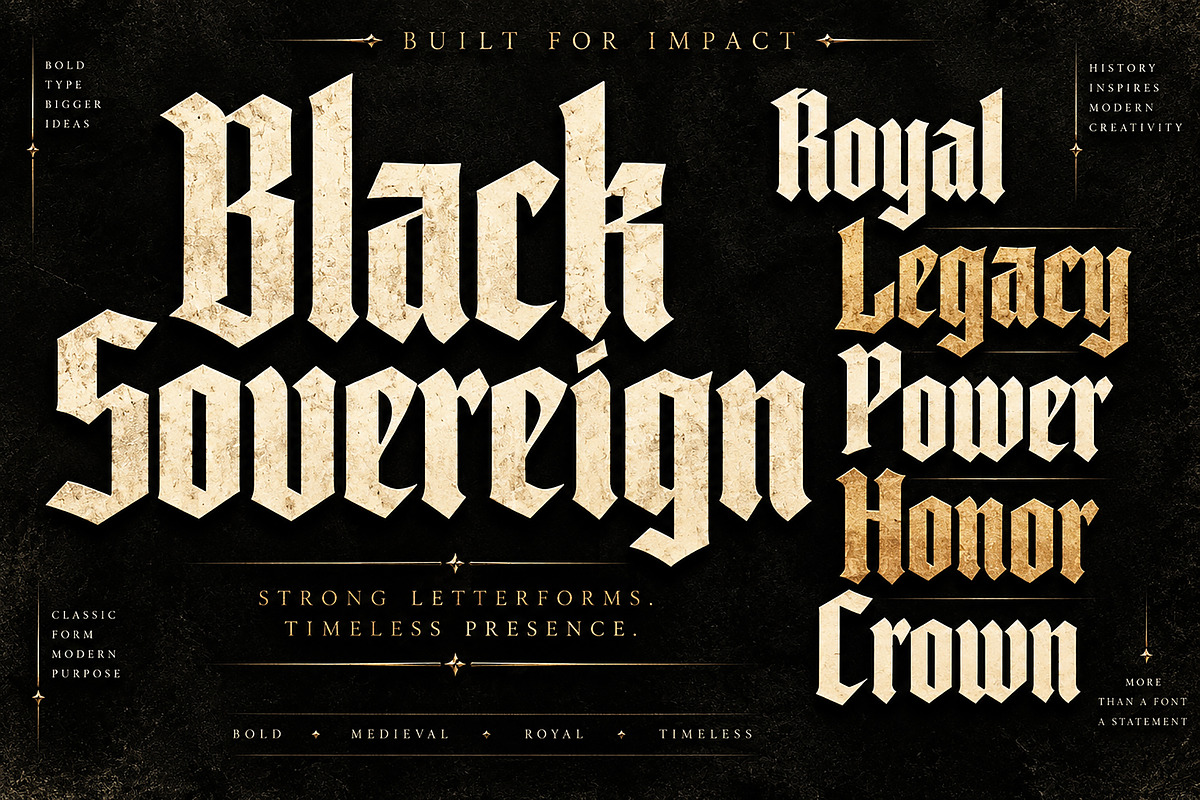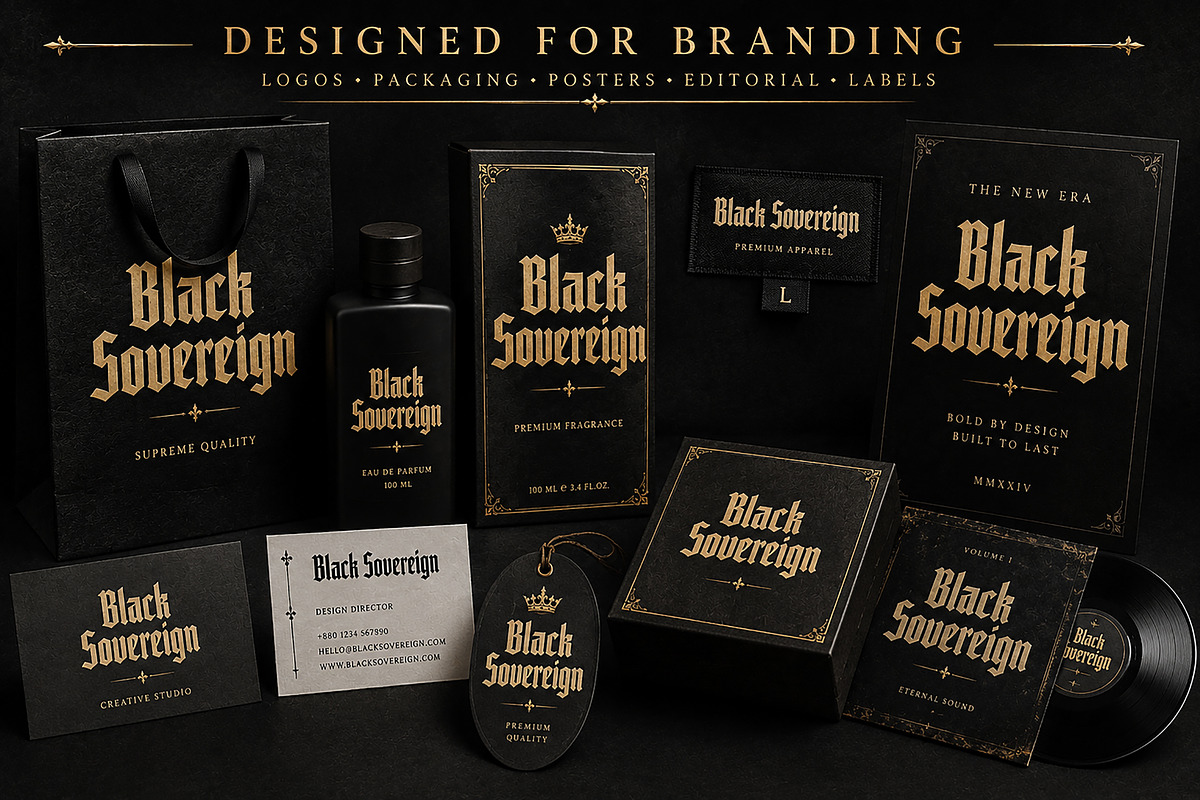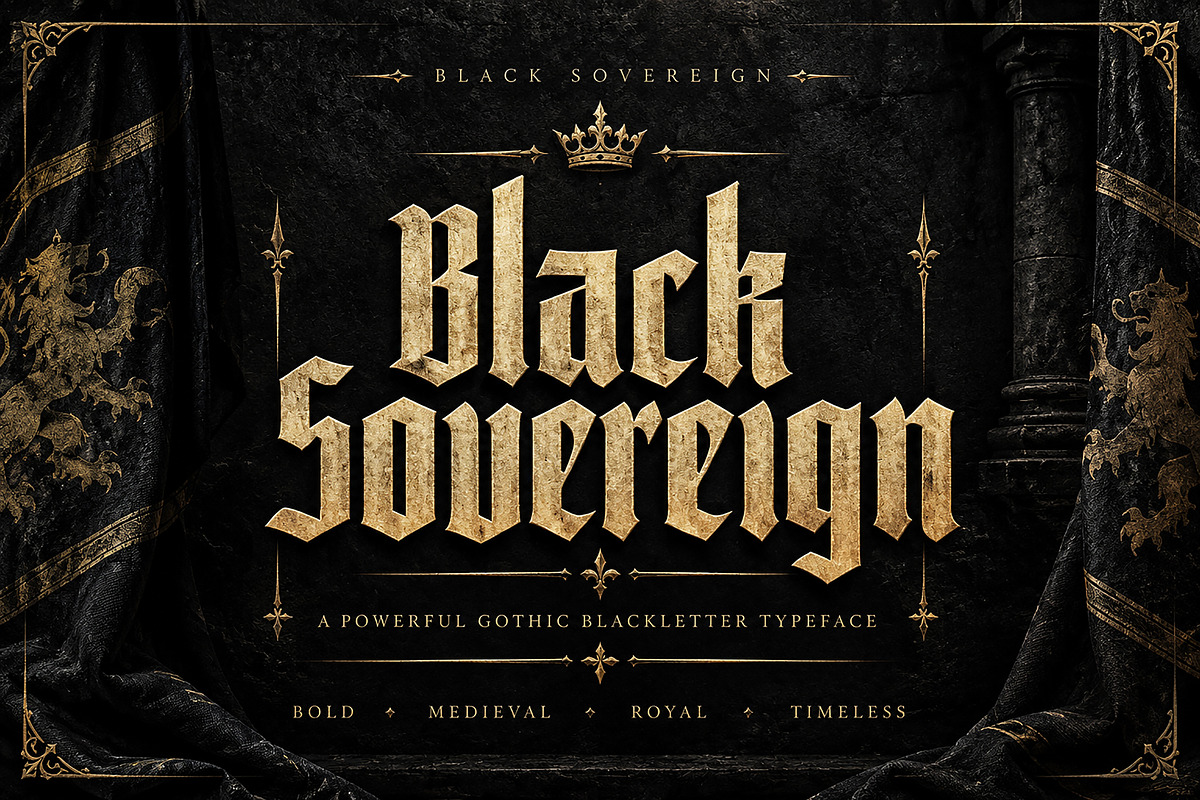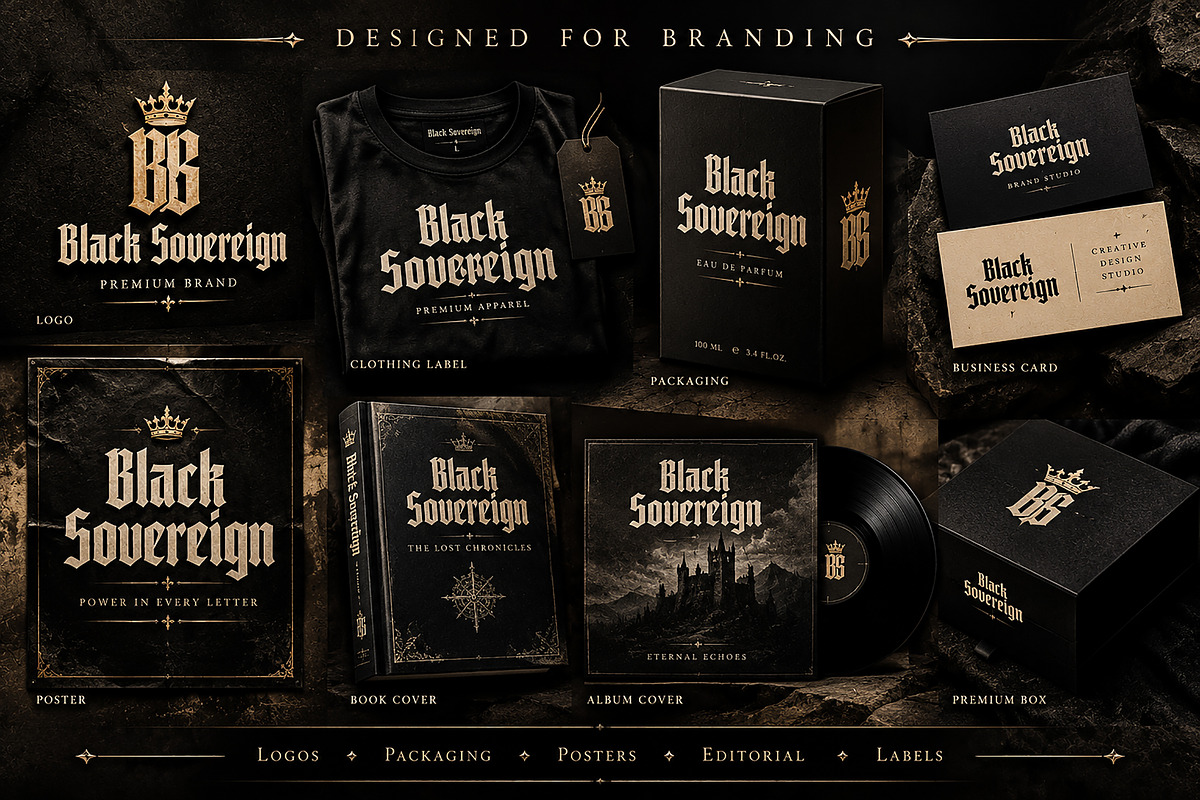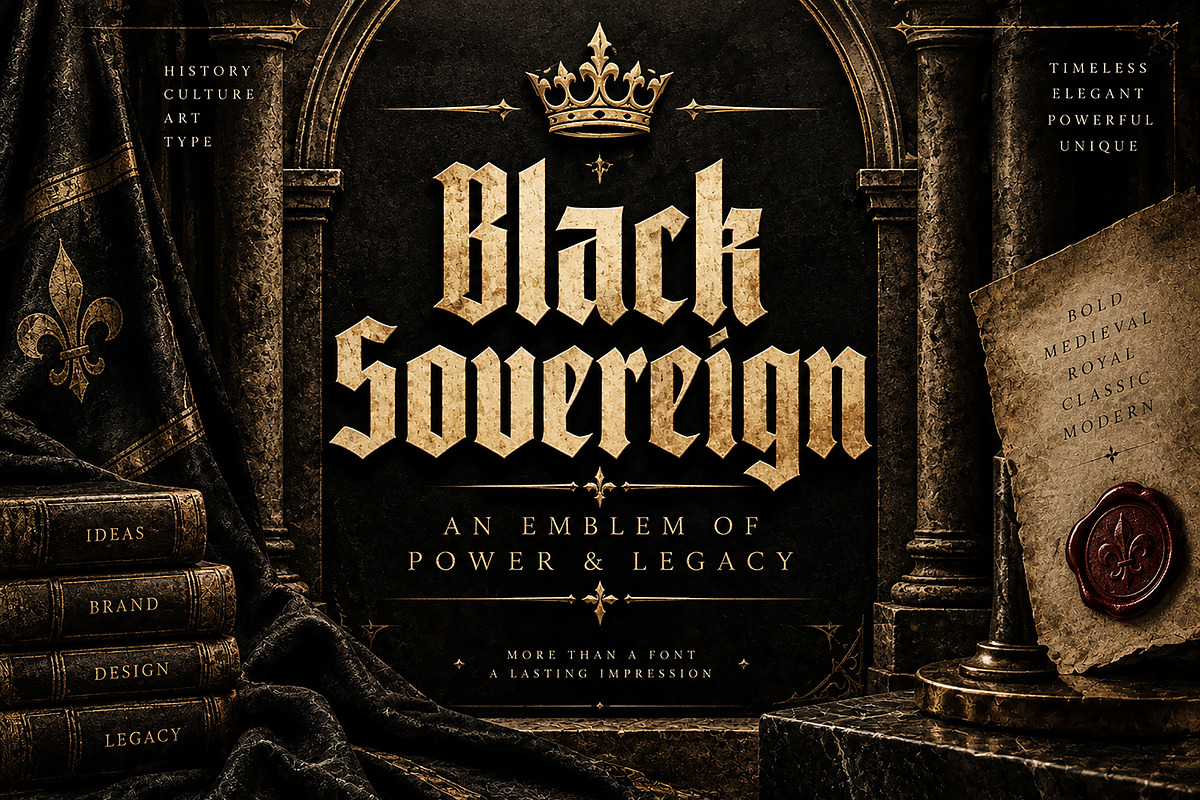
Black Sovereign
Black Sovereign — Bold by design, built to leave a lasting impression.
Black Sovereign is a powerful gothic blackletter typeface designed to bring a bold, medieval, royal, and timeless character to your creative projects. Its sharp letterforms and strong visual presence make it ideal for designs that need authority, heritage, and dramatic impact.
Perfect for logos, branding, apparel, packaging, posters, album covers, book covers, labels, badges, invitations, editorial designs, and merchandise.
Whether you're creating a premium fashion identity, a historic-inspired brand, a bold poster, or an eye-catching title, Black Sovereign is designed to make every word feel distinctive and commanding.
Logo & Brand Identity
Gothic & Medieval Branding
Clothing & Apparel Designs
Packaging & Product Labels
Posters & Wall Art
Album & Music Artwork
Book & Magazine Covers
Badges & Emblems
Tattoos & Merchandise
Editorial & Display Typography
Invitations & Special Events
Font Name: Black Sovereign
Style: Gothic / Blackletter / Medieval / Display